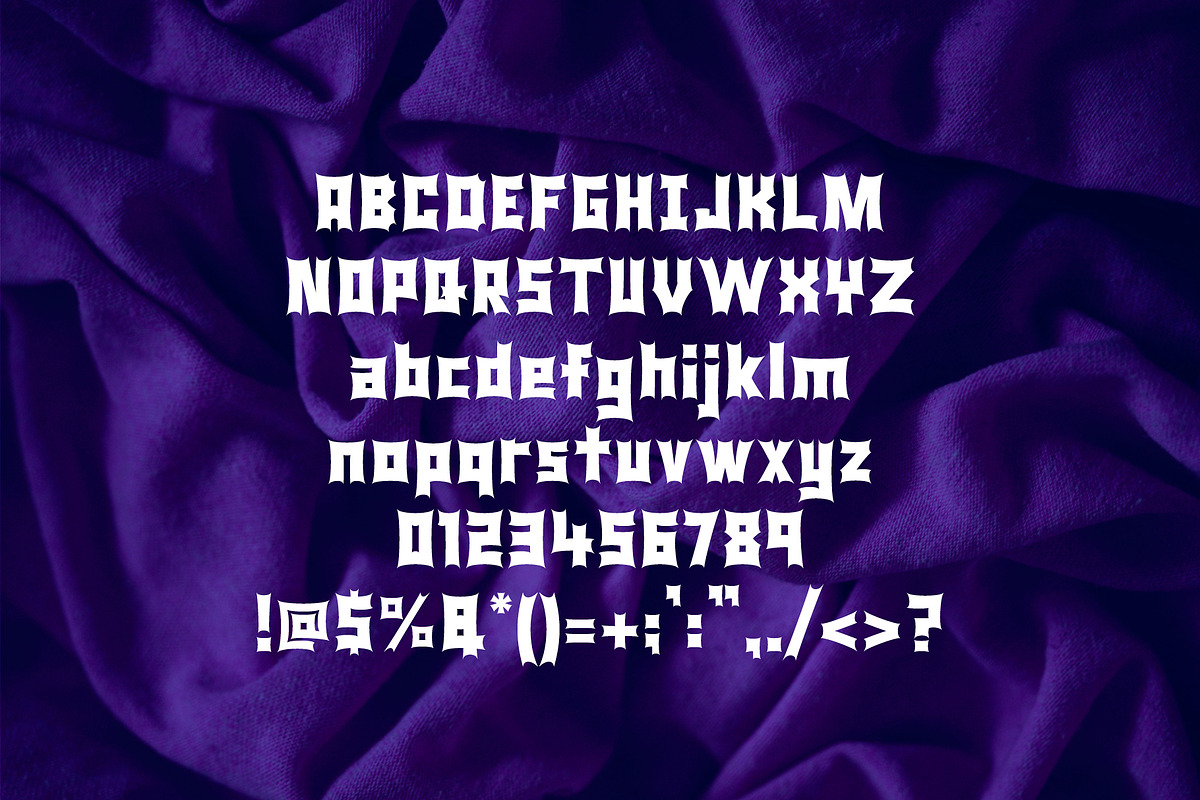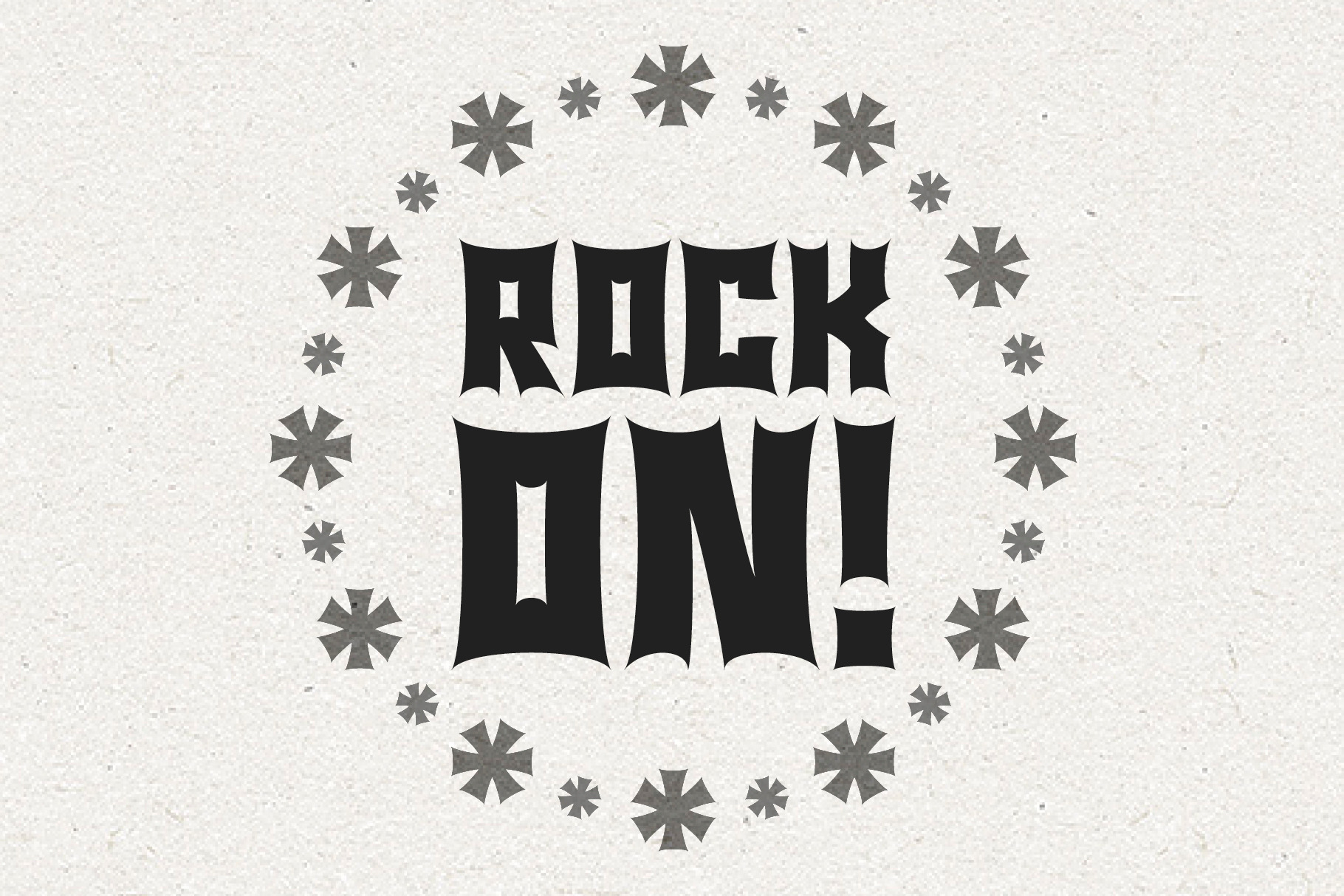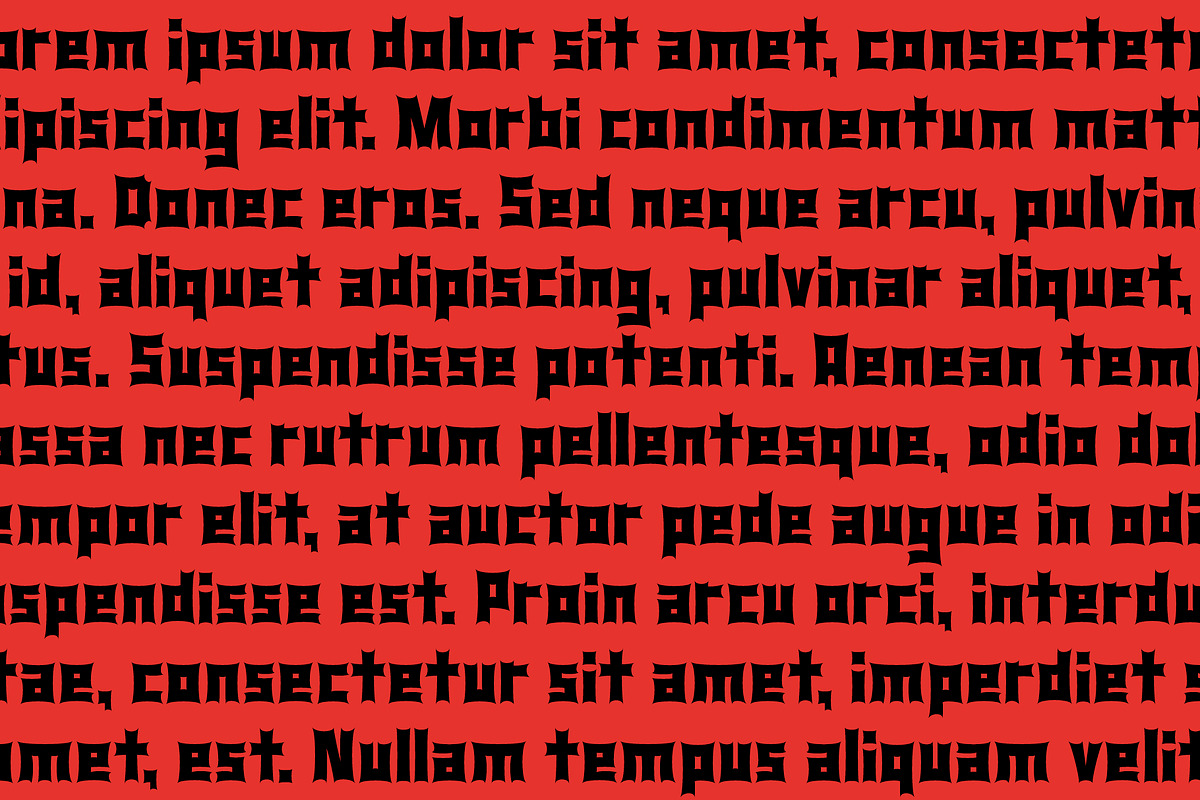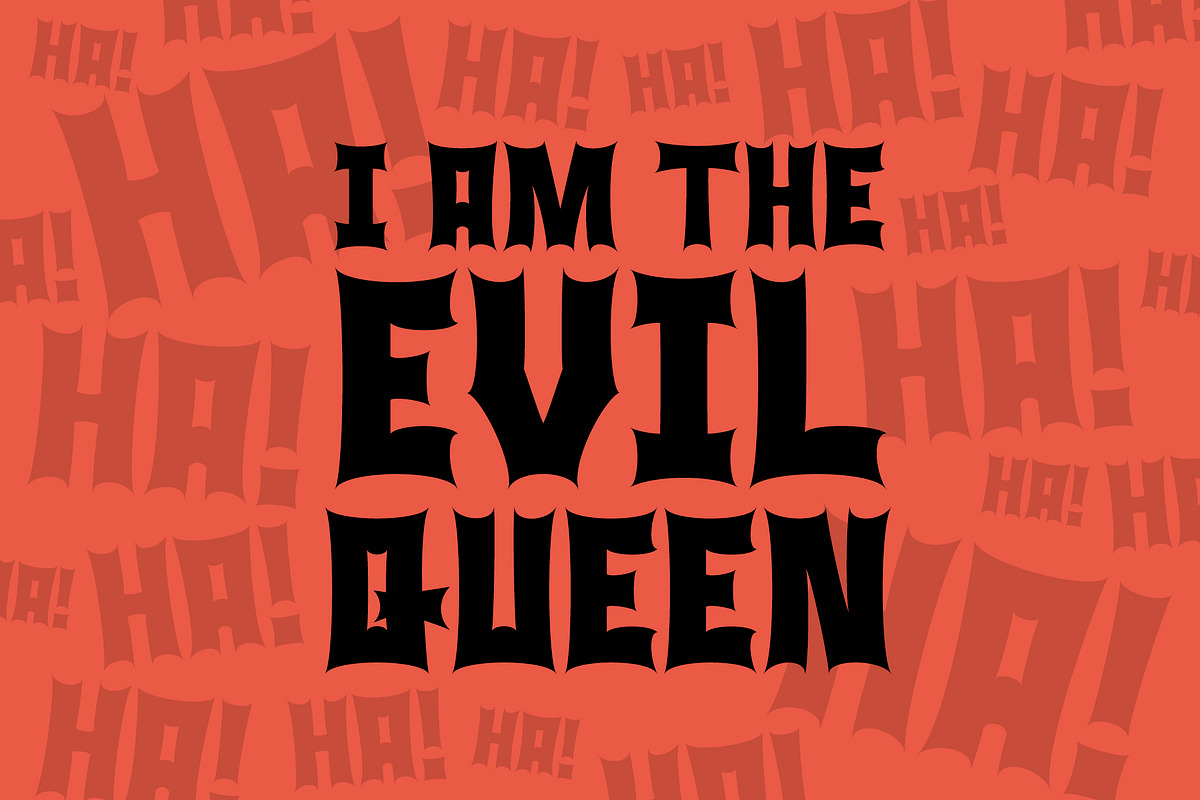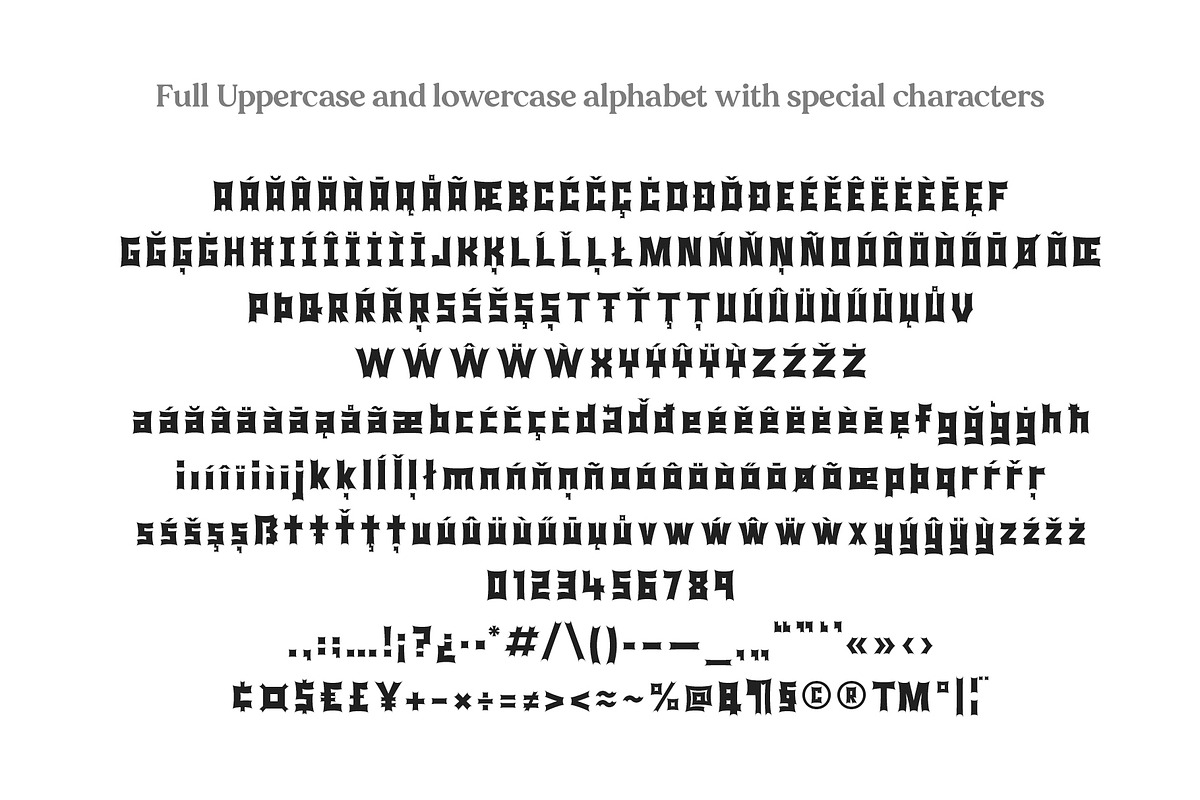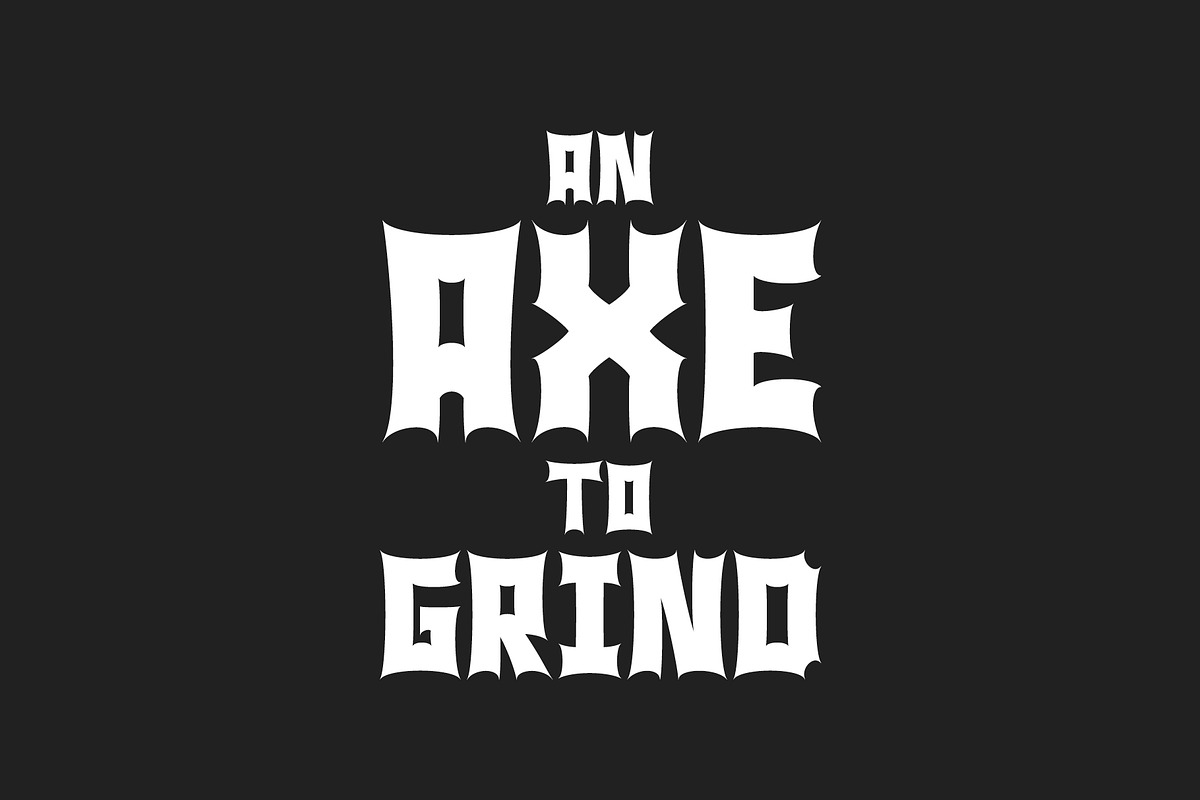
Monsta Rocka - a monster rocker font
Monsta Rocka - a monster rock and roll display font.
A sharp, spiky display font full of character. Essence of ROCK. A bit of monster too. Great for adding a spark to any graphic project you have. Perfect for T-shirts, mugs, tumblers etc. Really striking as a headline font in all capitals. Cool and unique.
Full uppercase and lowercase alphabet with numbers and special characters. Also includes the full European glyph set.